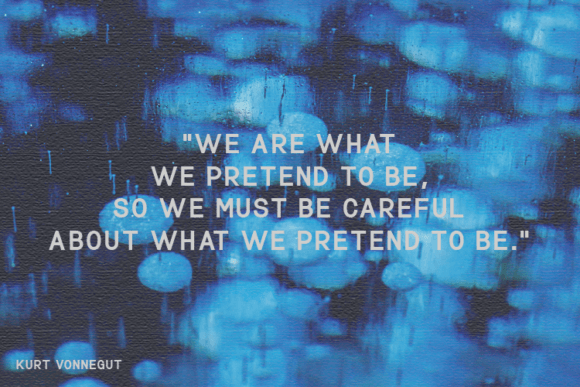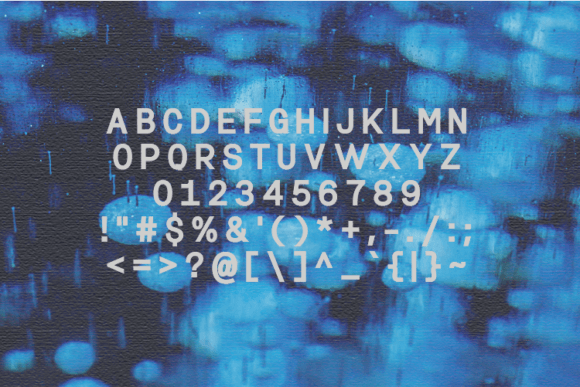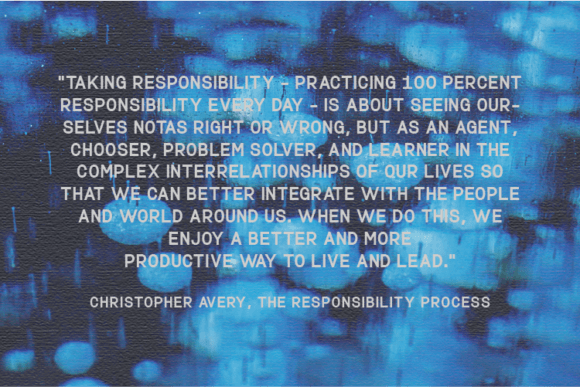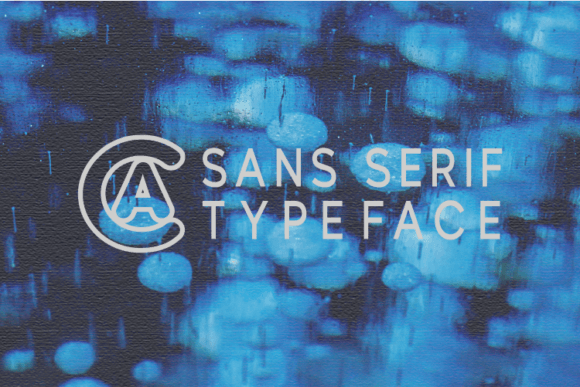
Introducing Established: The Ultimate Modern Sans Serif Font
Are you tired of using the same old fonts for your designs? Look no further! Established is a game-changing, versatile, modern, and classy sans serif font that’s perfect for a wide range of creative projects. From logos and weddings to invitations, quotes, advertisements, and more, Established is the ideal choice for designers and crafters looking to elevate their work.
What Makes Established So Special?
Established is more than just a font – it’s a design statement. Its clean and sleek lines make it perfect for creating modern and sophisticated designs that are sure to turn heads. The font’s versatility is one of its standout features, allowing you to use it for a variety of projects, from elegant wedding invitations to bold advertisements.
Established is an excellent choice for logos and branding projects. Its modern and classy design ensures that your brand stands out from the competition, while its sans serif style provides a clean and professional look. Whether you’re creating a logo for a new business or rebranding an existing one, Established is the perfect font to help you make a lasting impression.
Weddings and Invitations
Weddings and invitations are a perfect match for Established. The font’s elegant design and sophisticated style make it ideal for creating beautiful and memorable wedding invitations, save-the-dates, and thank-you cards. With Established, you can add a touch of class and sophistication to your wedding stationery, making it truly unforgettable.
Quotes and Advertisements
Established is also perfect for quotes and advertisements. The font’s bold and modern design ensures that your message stands out, while its clean lines provide a clear and easy-to-read format. Whether you’re creating a quote for social media or an advertisement for a magazine, Established is the ideal font to help you get your message across.
Magazines and Print
Established is a great choice for magazines and print projects. The font’s versatility and readability make it perfect for articles, headlines, and captions. Whether you’re creating a fashion magazine or a business publication, Established is the ideal font to help you create a visually appealing and engaging design.
Why Choose Established?
So, why choose Established over other fonts? Here are just a few reasons:
- Versatility: Established can be used for a wide range of projects, from logos and branding to weddings and advertisements.
- Modern and Classy Design: The font’s sleek and sophisticated design ensures that your work looks modern and professional.
- Clean and Readable: Established’s clean lines and sans serif style make it easy to read and perfect for body text.
- Elegant and Sophisticated: The font’s elegant design makes it perfect for creating beautiful and memorable designs.
Established is a versatile, modern, and classy sans serif font that’s perfect for a wide range of creative projects. Its clean and sleek lines make it perfect for creating modern and sophisticated designs that are sure to turn heads. Whether you’re a designer or crafter, Established is the ideal choice for anyone looking to elevate their work. So why wait? Download Established today and see how it can bring your creative ideas to life!